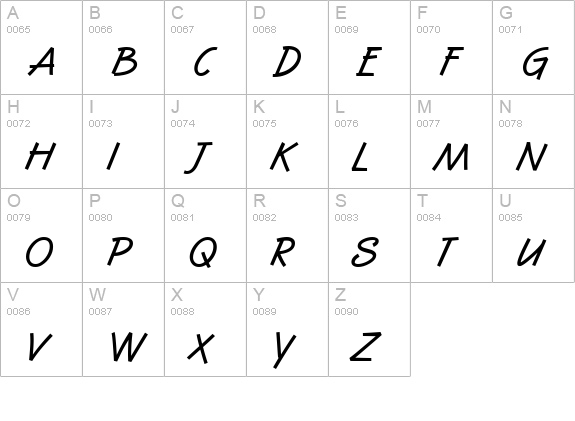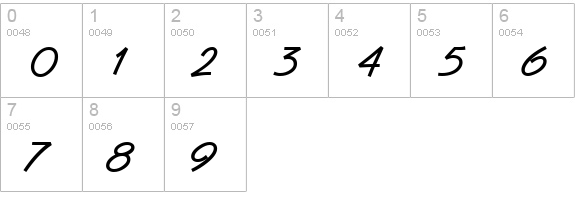
SuccotashHmkBold Font Details
SuccotashHmkBold font is a versatile and eye-catching typeface that exudes a bold and modern aesthetic. With its unique design and clean lines, this font is perfect for a variety of design projects, from branding to marketing materials. The bold weight of SuccotashHmkBold adds a sense of strength and impact to any text, making it stand out in a crowded digital world. The best part? SuccotashHmkBold font is available for free download at FontsMarket.com. Whether you're a designer looking to add a fresh new font to your collection or a business owner in need of a striking typeface for your brand, SuccotashHmkBold is the perfect choice. Don't miss out on this opportunity to enhance your designs with this stylish and contemporary font – download SuccotashHmkBold today and make a statement with your text!